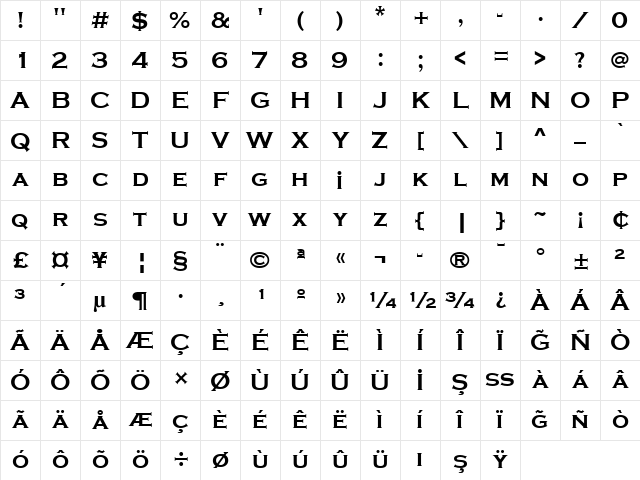
TRCopperplate Gothic Bold Regular
Design Context for TRCopperplate Gothic Bold
TRCopperplate Gothic Bold takes a clean, functional approach - its unadorned letterforms prioritise legibility and work reliably across screen and print environments. Its bold stroke weight gives it real presence on the page.
Font Pairing: Use TRCopperplate Gothic Bold for headlines alongside a lighter-weight sans or serif for body copy to establish clear visual hierarchy.
Pro Tip: Use TRCopperplate Gothic Bold for UI labels, navigation, and short-form body copy where clean legibility is the priority.